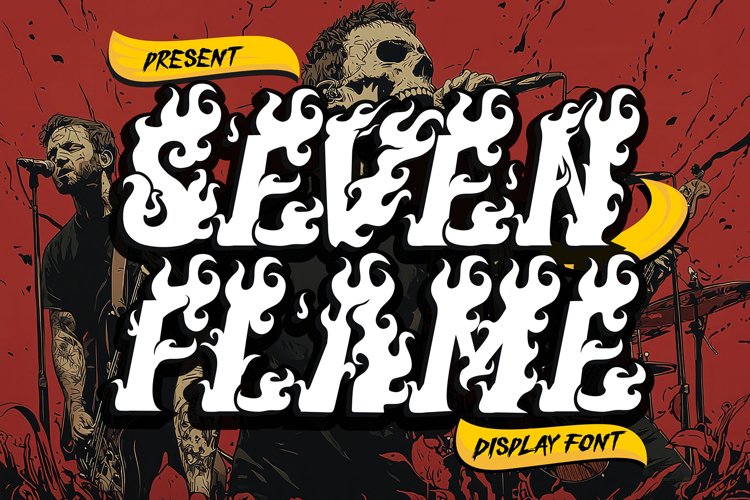
Seven Flame - Fire Decorative Display Font
Ignite your designs with Seven Flame, a blazing fire display font that exudes intensity and energy. This font captures the fierce essence of flames, bringing a heated, dramatic impact to any project.
🔥 Fiery Style: Seven Flame’s bold, flame-inspired characters create an explosive look perfect for headlines, posters, branding, and promotional graphics needing a high-energy vibe.
🔥 Versatile and Unique: The font’s daring, flame-stroked design makes it ideal for everything from gaming to event posters. Seven Flame embodies the spirit of fire, adding an unforgettable spark to your creative work.
Seven Flame is the go-to choice for designs that demand attention with a fierce, fiery impact, leaving a powerful impression wherever it goes.